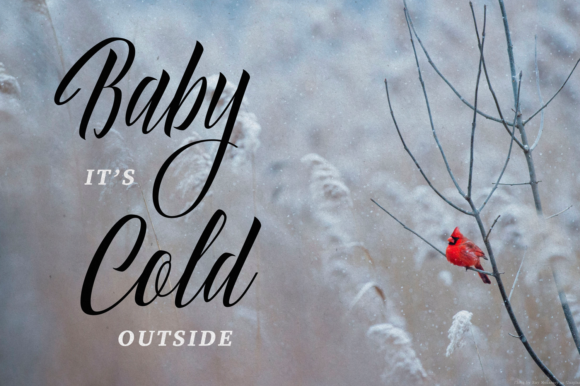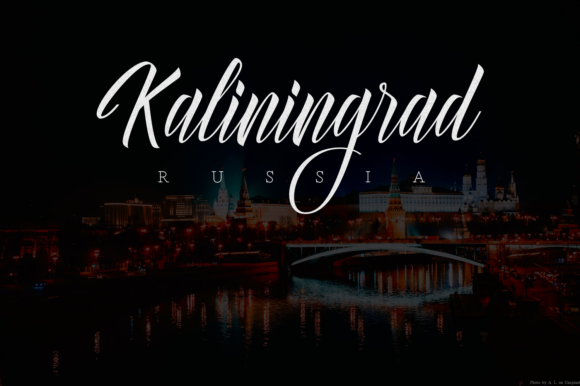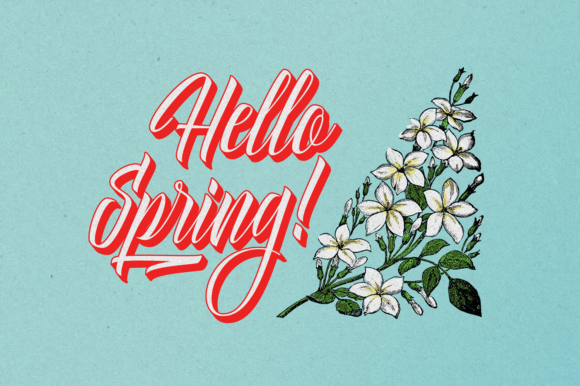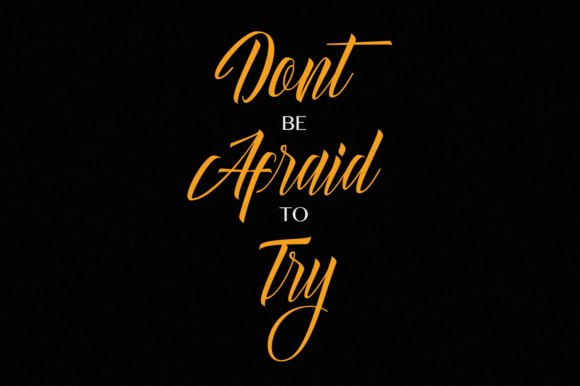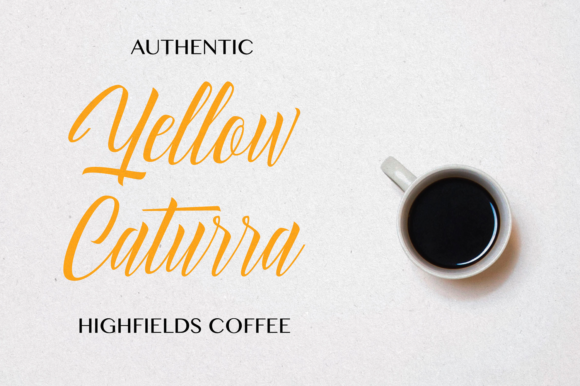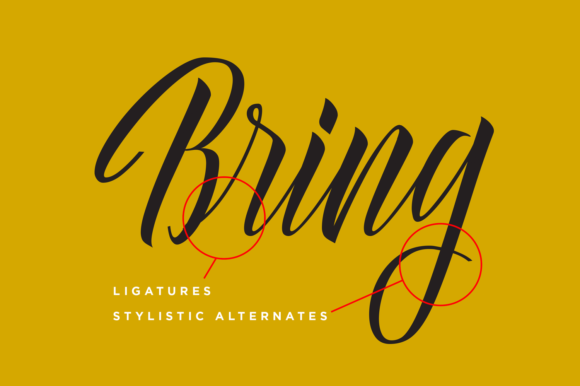
Introduction to Delphin Spring Font
Delphin Spring is a flowing handwritten font, described by an elegant touch, perfect for your favorite projects.
Key Features of Delphin Spring Font
Why Choose Delphin Spring Font?
Delphin Spring Font offers exceptional quality and versatility, making it a valuable addition to your design toolkit. Whether you’re creating for personal projects or commercial use, Delphin Spring Font delivers professional results.